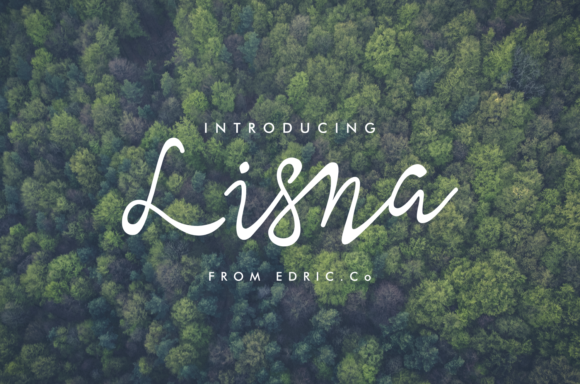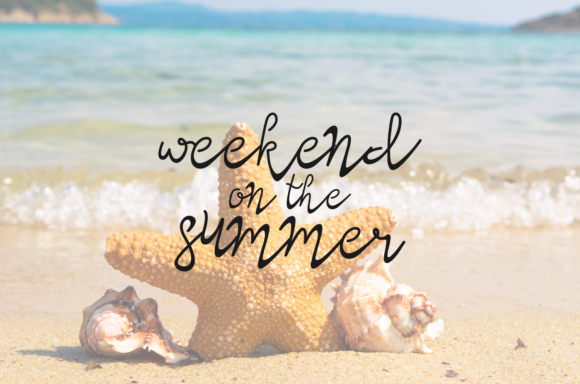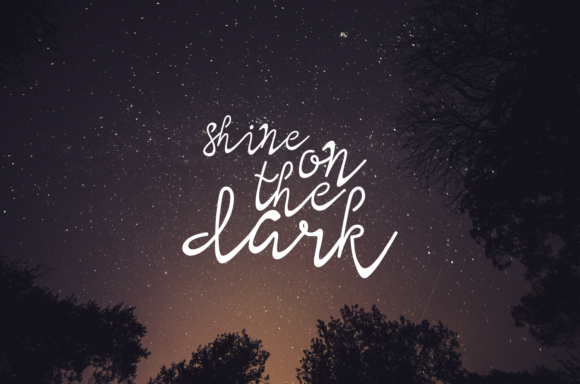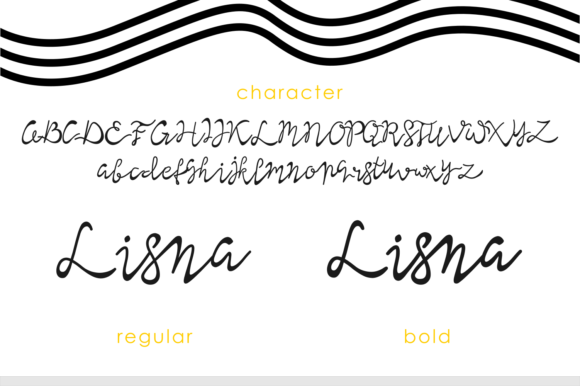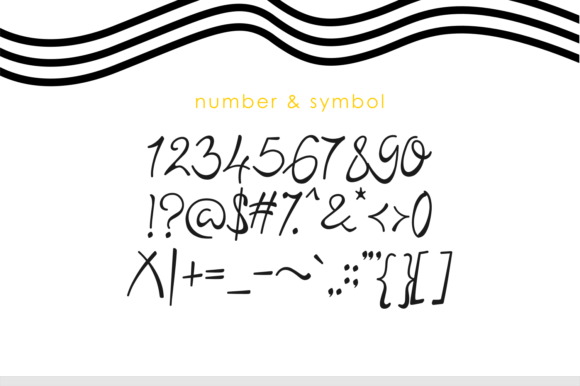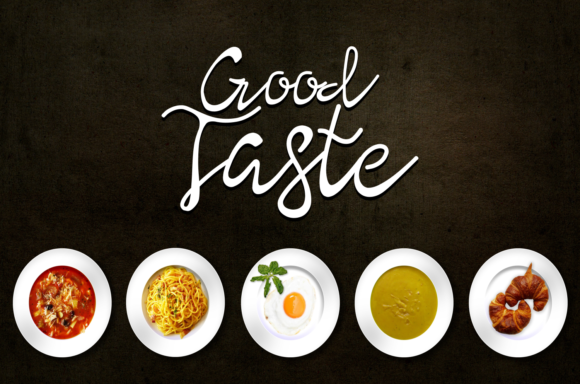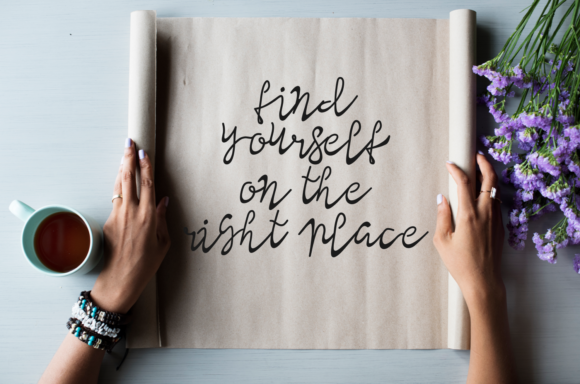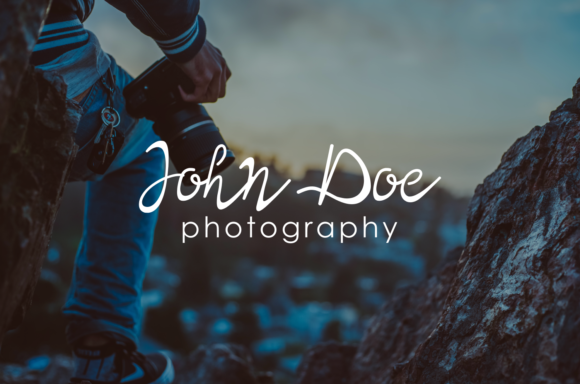
Lisna Font
About Lisna Font
The Lisna is a natural handwritten script. It has a sophisticated style which is perfect for branding, logos, photography and signature. It’s elegant, classy, strong and beautiful!